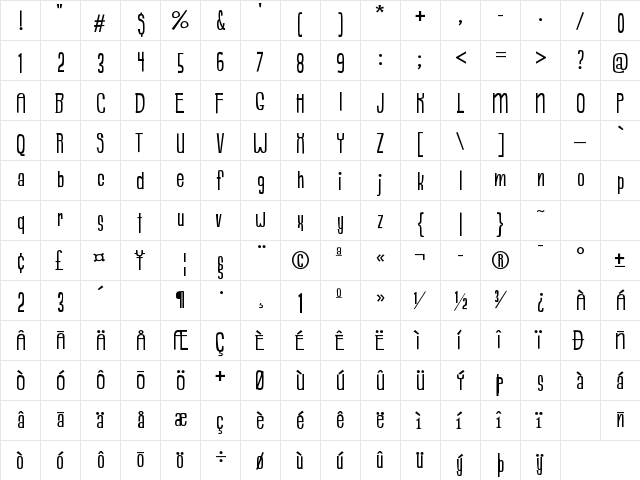
Borlogs Regular
| Designer | VVbluezz Design |
Design Context for Borlogs Typeface
Borlogs is a composed and adaptable typeface that performs quietly and consistently across a wide range of design contexts.
Pro Tip: Use Borlogs in both headline and body roles to test its range before committing to a single application.